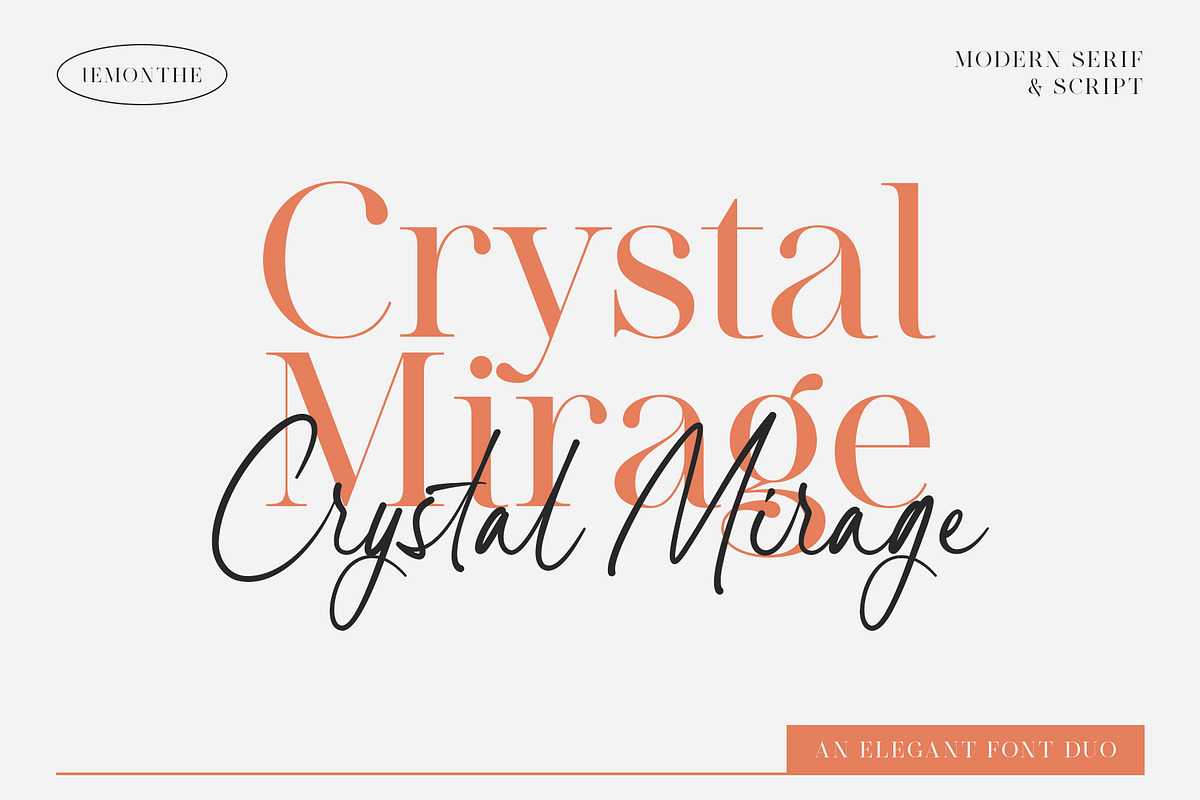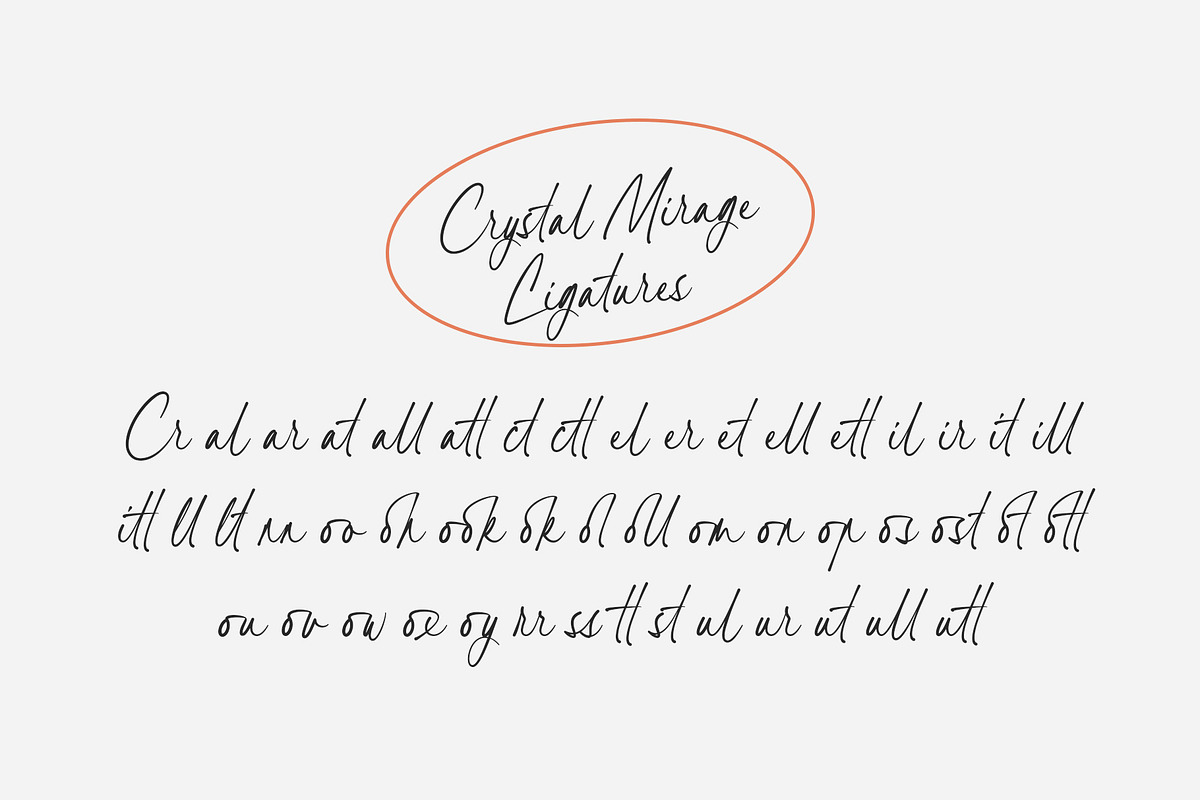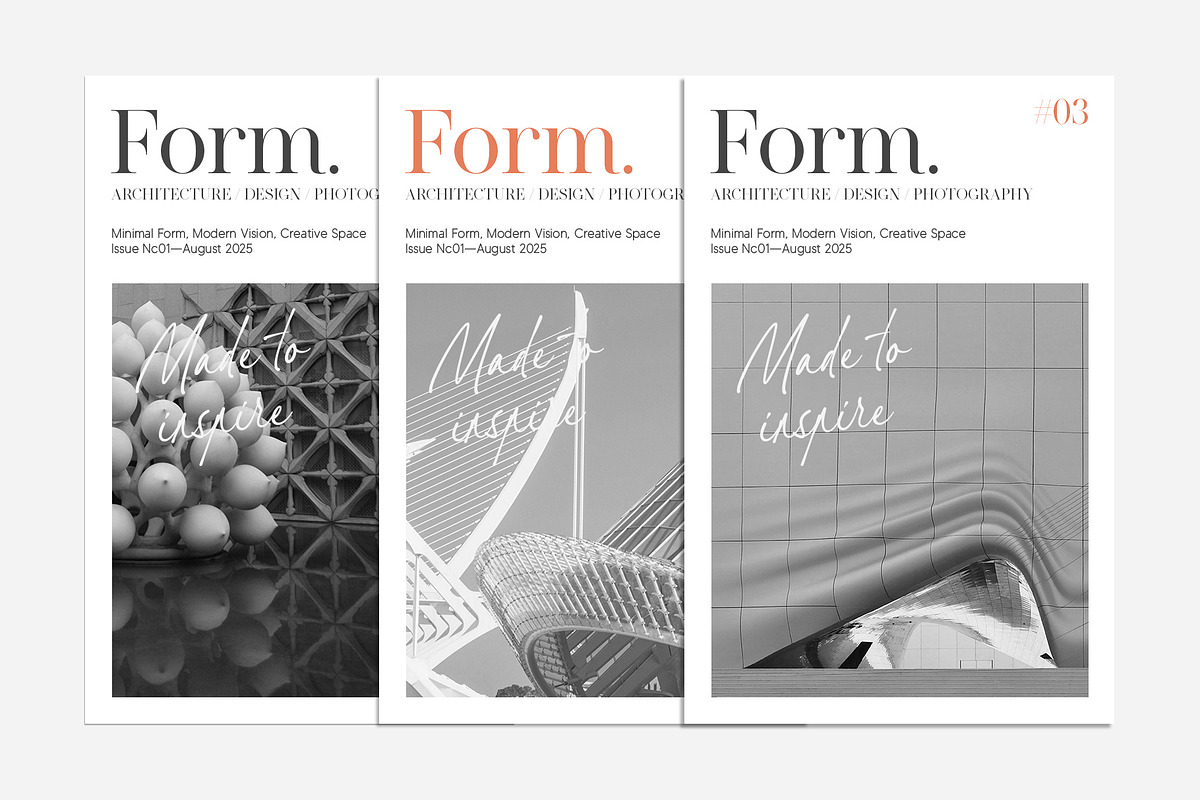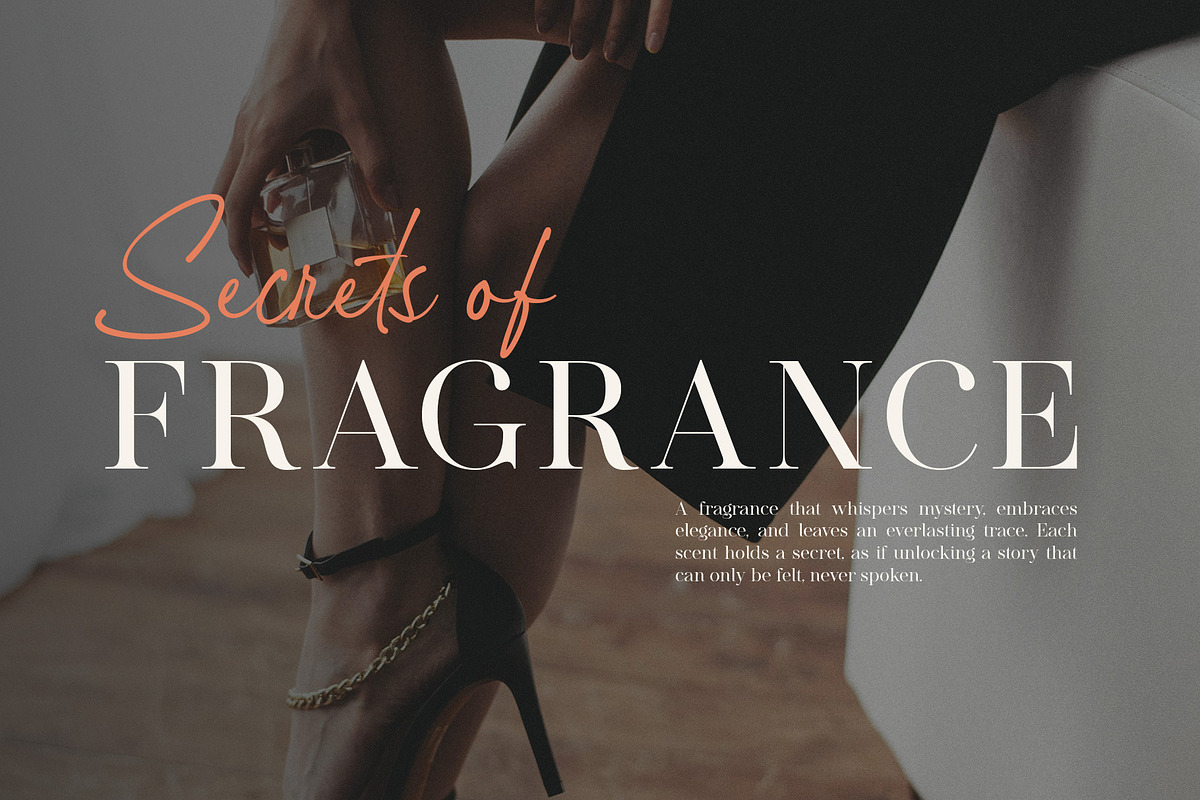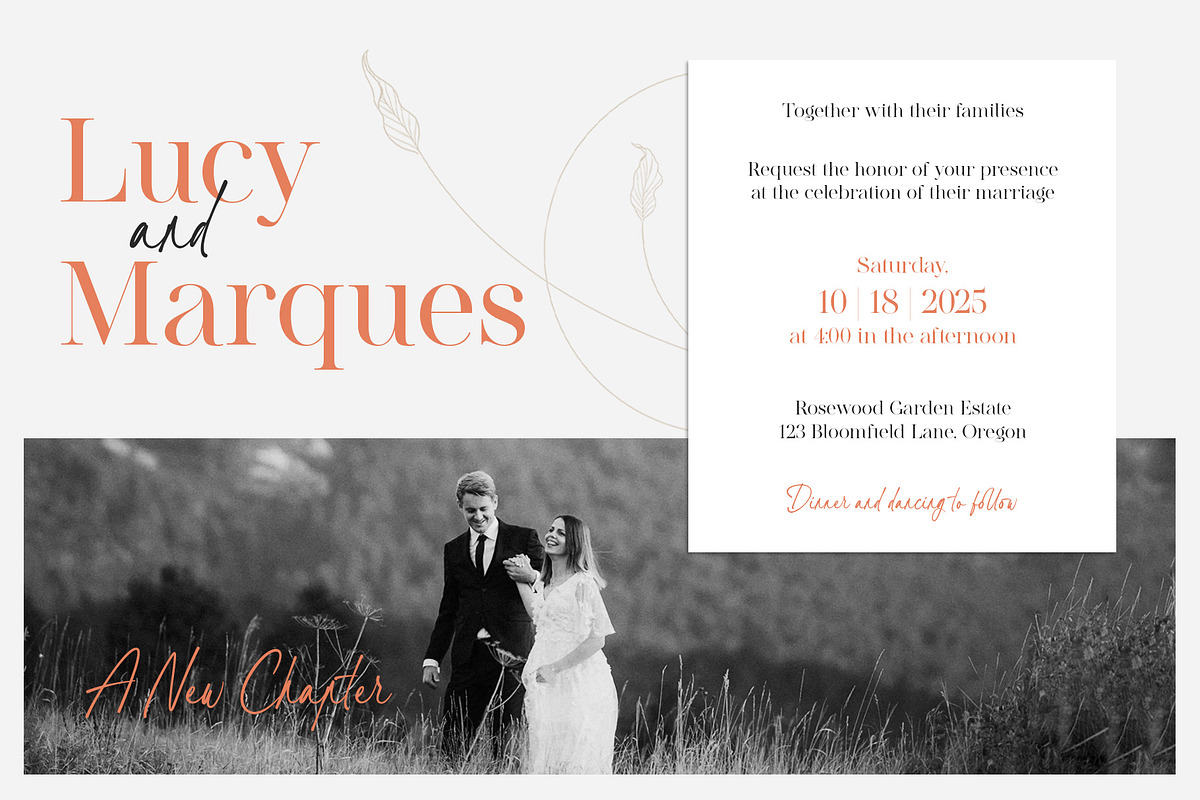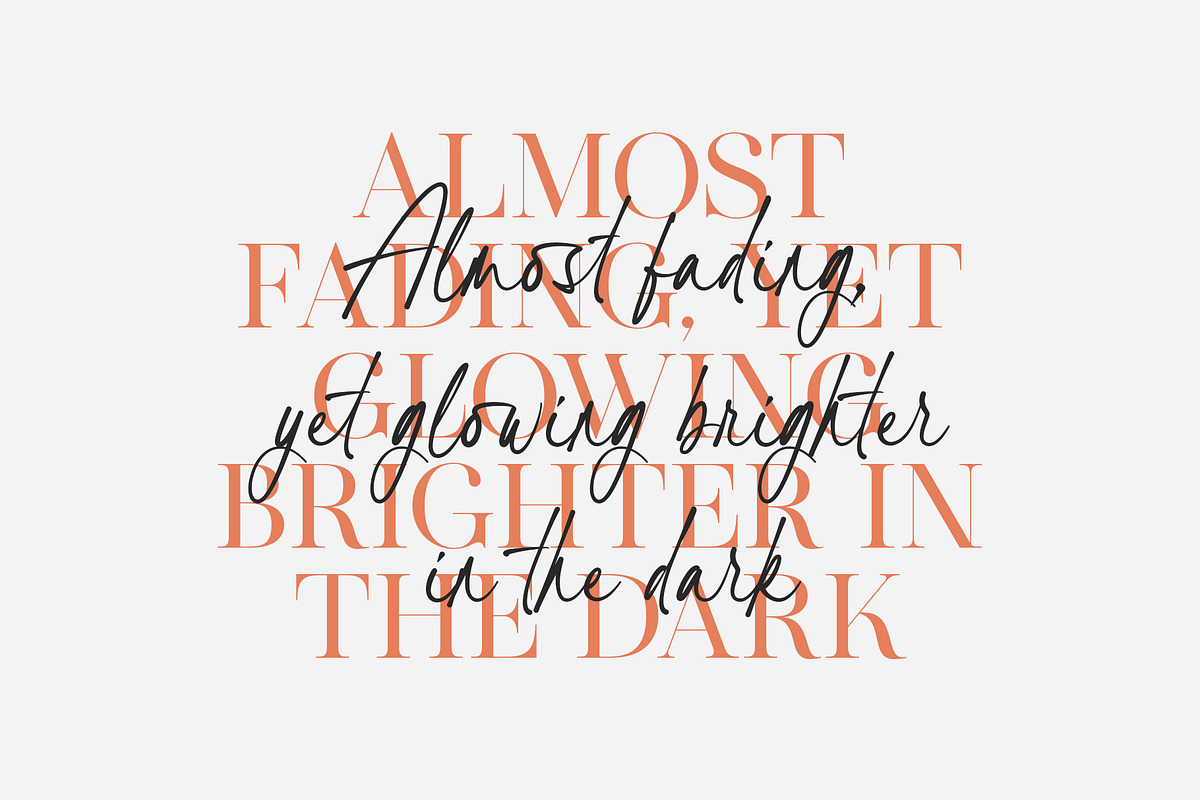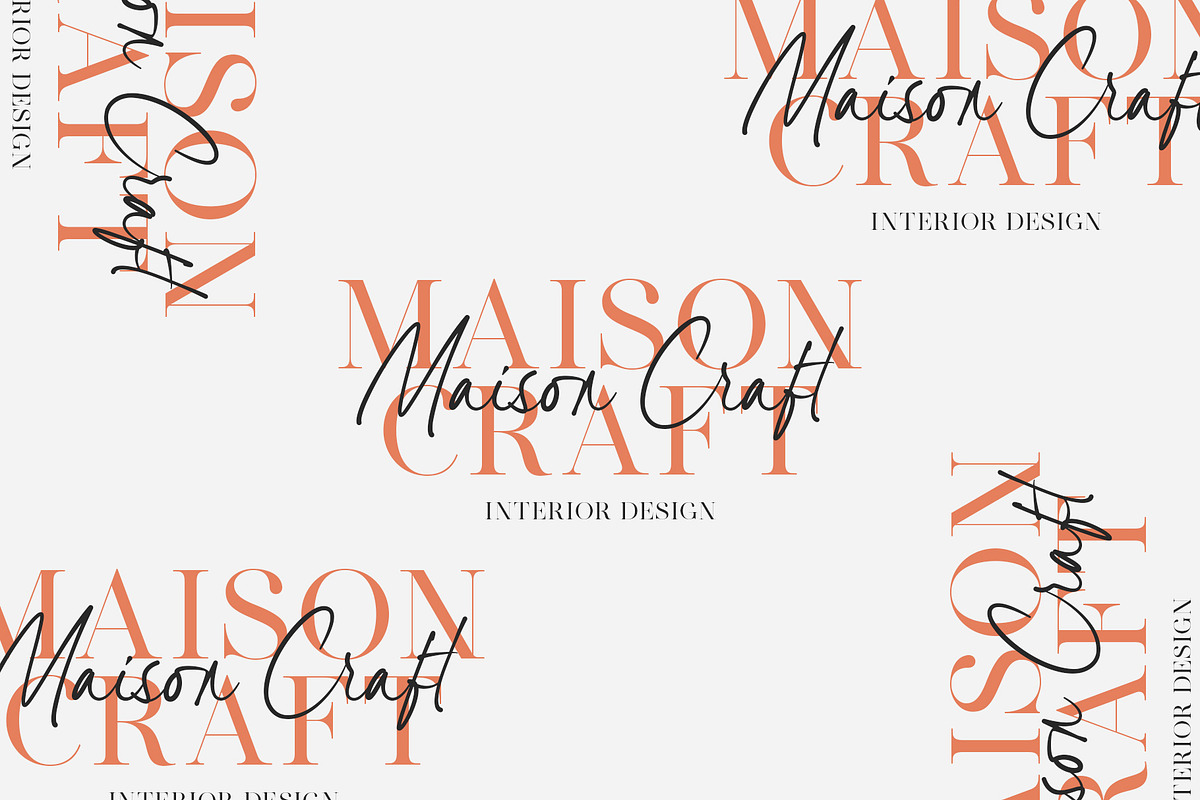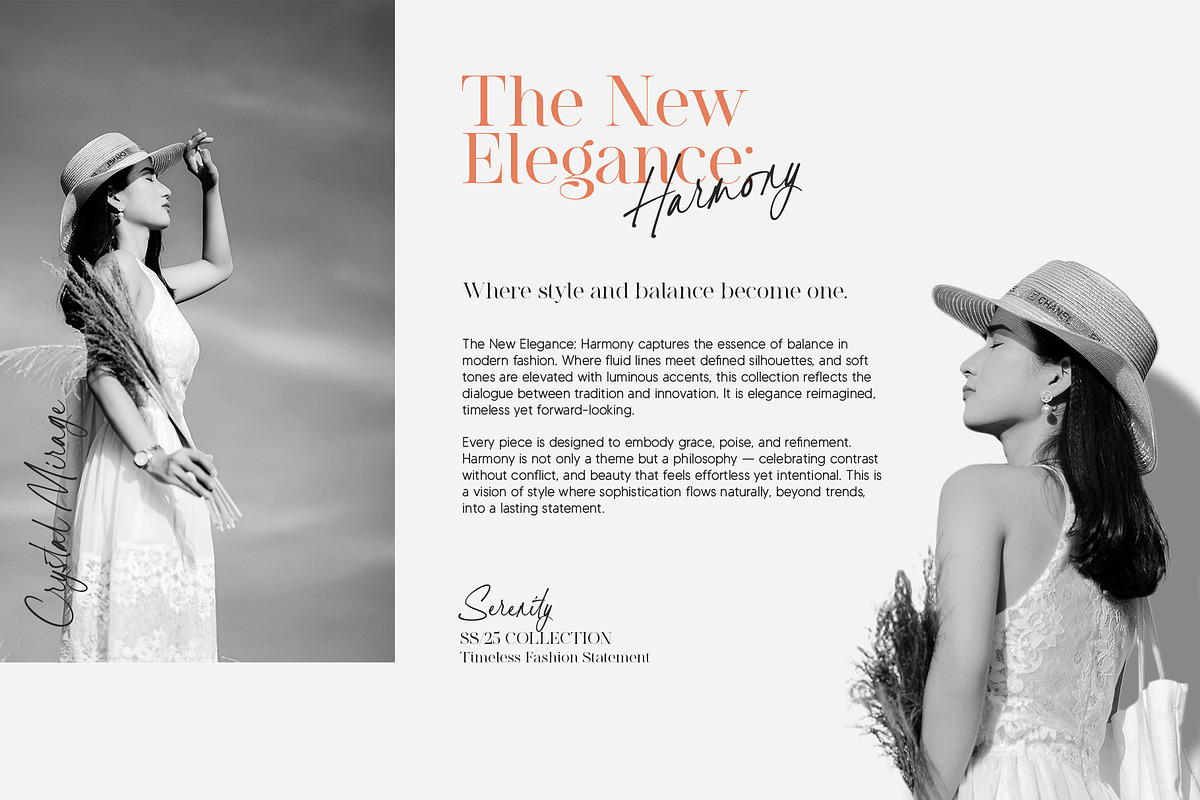
Crystal Mirage | Font Duo
Crystal Mirage is an exquisite font duo that beautifully merges an elegant serif with a sophisticated script, creating a perfect blend of style and functionality. This versatile pairing caters to a variety of design applications, including branding, packaging, invitations, editorial layouts, and social media graphics. With its refined and balanced aesthetic, Crystal Mirage adds a graceful touch to your projects, fostering a seamless combination of modern elegance and practical usability. Explore how this font duo can elevate your creative work with its unique character and charm.
- Serif & Script